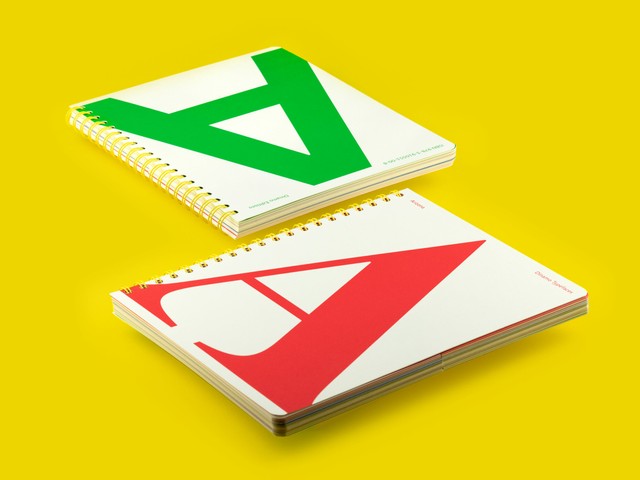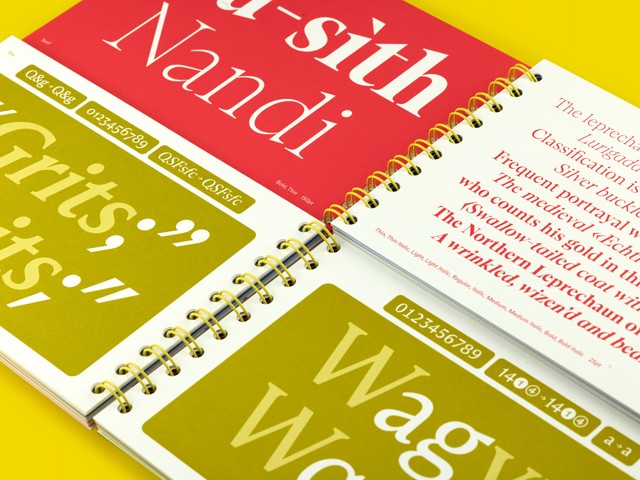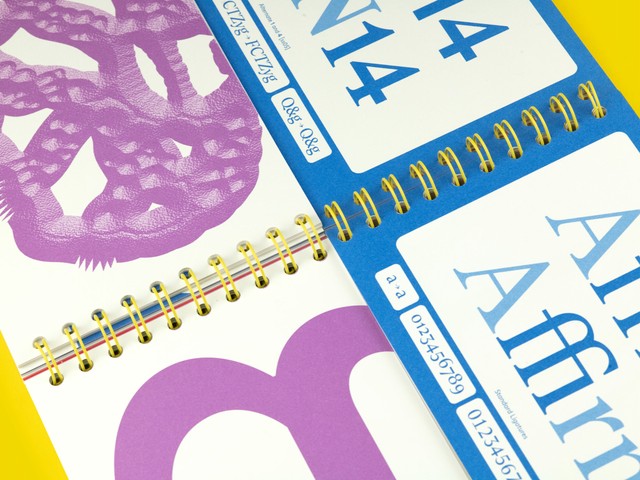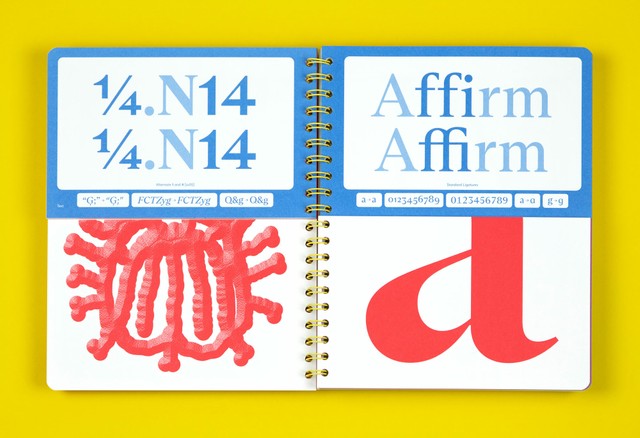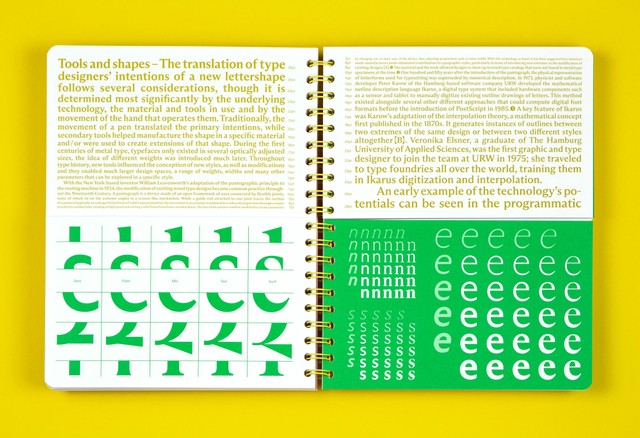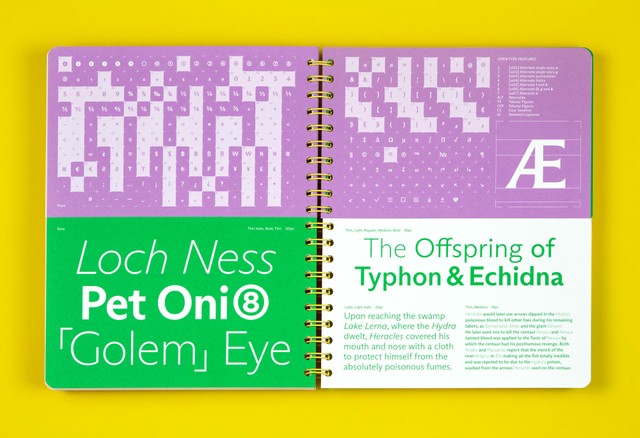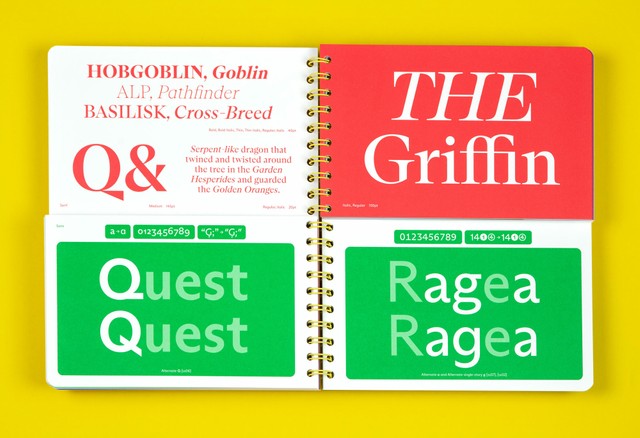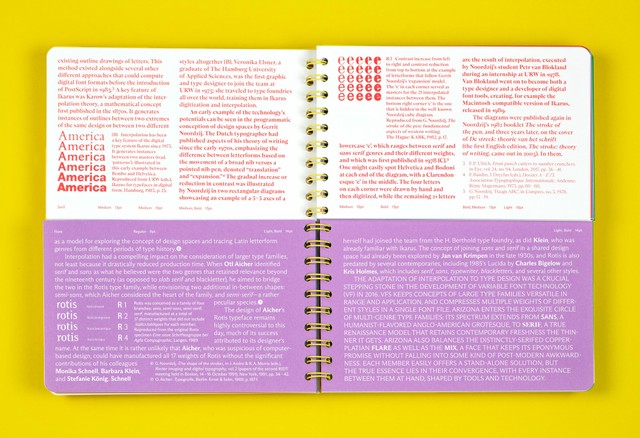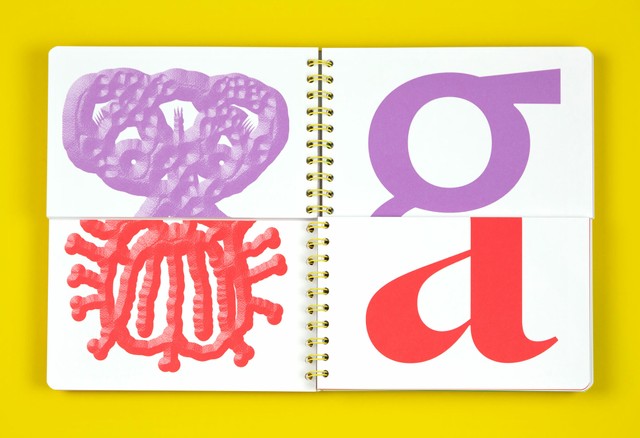
A spiral-bound, flip book by Hanzer Liccini exploring the many faces of our sans-to-serif superfamily —
We’re excited to release The Arizona Type Specimen today, a five color, split-page, spiral-bound showcase of ABC Arizona. Rounded corners make it suitable for both adults and children.
Designed by Elias Hanzer, ABC Arizona is the first ever sans-to-serif Variable Font that packages its five looks — Serif, Text, Mix, Flare, and Sans — into one single file. This new specimen, designed by studio Hanzer Liccini, mirrors Arizona’s countless combinations through its split structure. You can mix and match the half pages to discover the typeface’s vast system. Just like monster picture books for kids.
Illustrations
Illustrations by Paris-based Célestin Krier (a friend of Elias’s from UdK student days) are inspired by the mythical Chimera, a hybrid creature from Greek mythology composed of different animal parts. Think of a goat’s head, a lion’s body, and a snake’s tail.
Arizona Sans in green (PANTONE 7481U)
Arizona Flare in blackberry-purple (PANTONE 528U)
Arizona Serif in red (PANTONE 1788U)
Arizona Text in blue (PANTONE 2727U)
Arizona Mix in dark yellow (PANTONE 103U)
We commissioned type historian and researcher Ferdinand Ulrich to write “Tools and Shapes,” an essay that puts ABC Arizona in conversation with other sans to serif experiments from the past. Things like Otl Aicher’s Rotis. It runs through the publication five times, each time with a different layout, color, and Arizona sub-family.
About ABC Arizona
As the first ever sans to serif “superfamily,” ABC Arizona is an all-genres-in-one happy meal, available as both static files or as a sliding Variable Font. Stretching from its headline to text possibilities, an entire library could be typeset with Arizona alone.